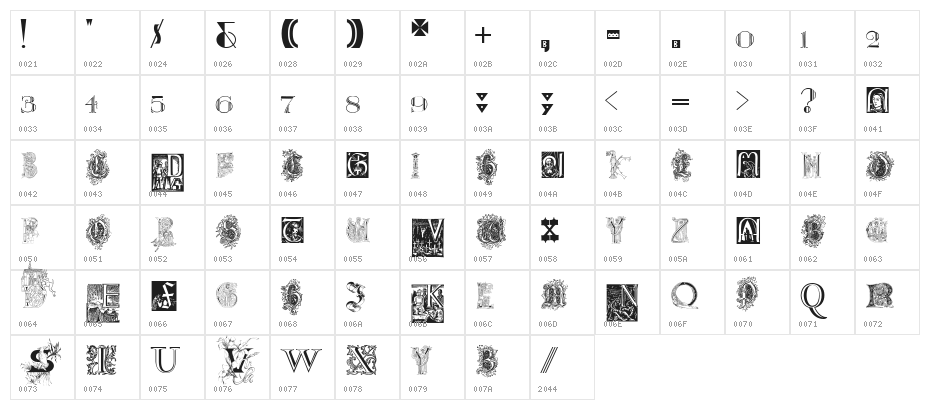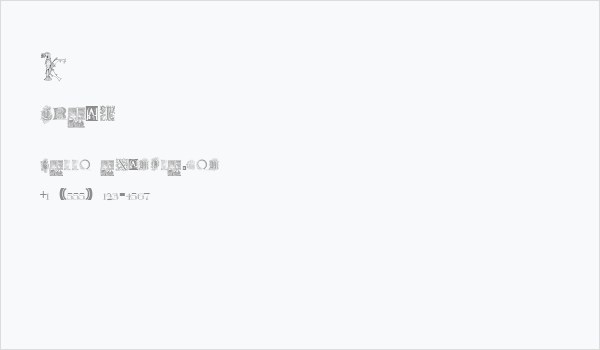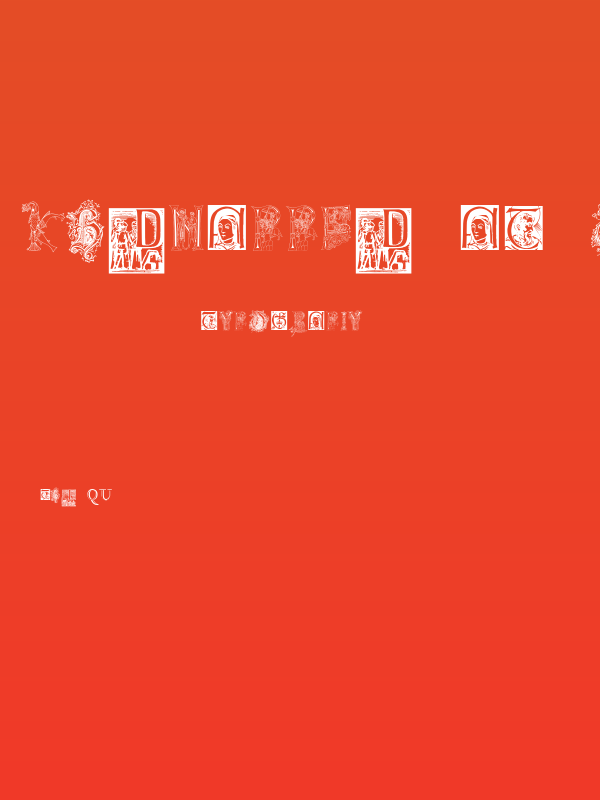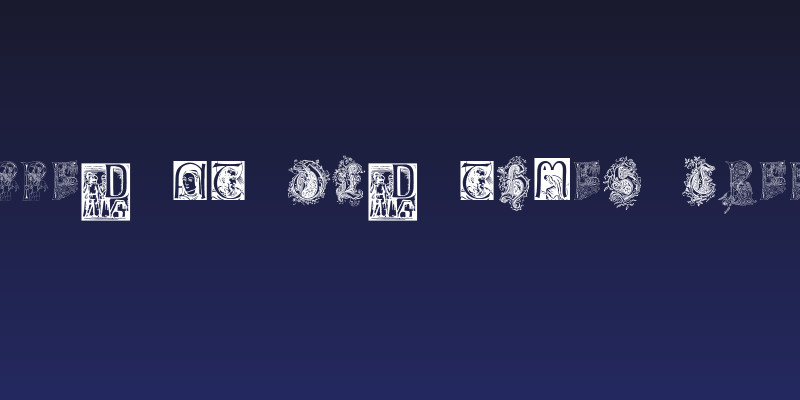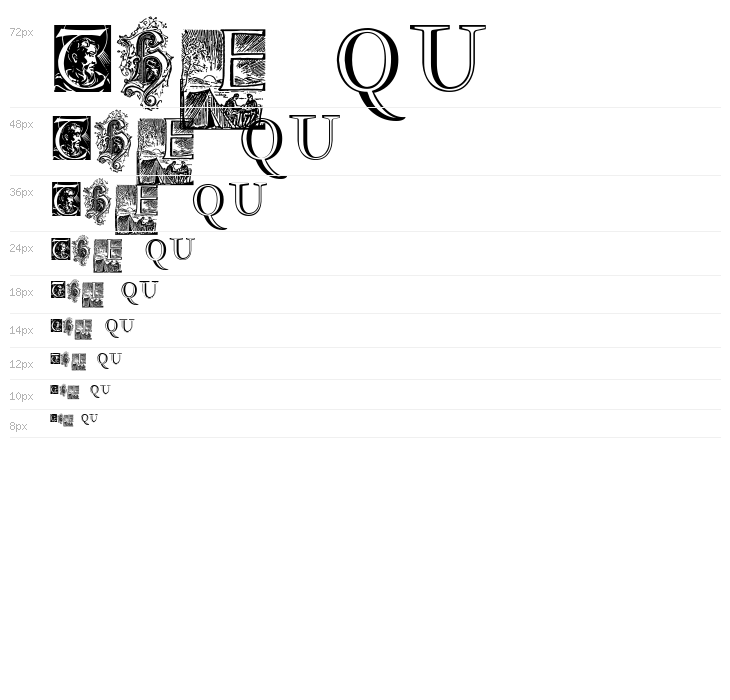
Kidnapped at Old Times Free Five Font
Kidnapped at Old Times Free Five Description
This font is a highly decorative and intricate typeface that incorporates historical and artistic elements into each character. Each letter is adorned with elaborate illustrations, reminiscent of medieval or Renaissance artwork, making it visually striking and unique. The numbers and special characters also feature ornate designs, adding to the overall complexity and artistic flair. This font is not suited for body text due to its detailed nature but serves as an excellent choice for projects that require a historical or artistic touch.
| Overall Style | Vintage, Decorative |
| Proposed Projects | Ideal for use in themed posters, historical event invitations, artistic book covers, and any project requiring a vintage or classical aesthetic. |